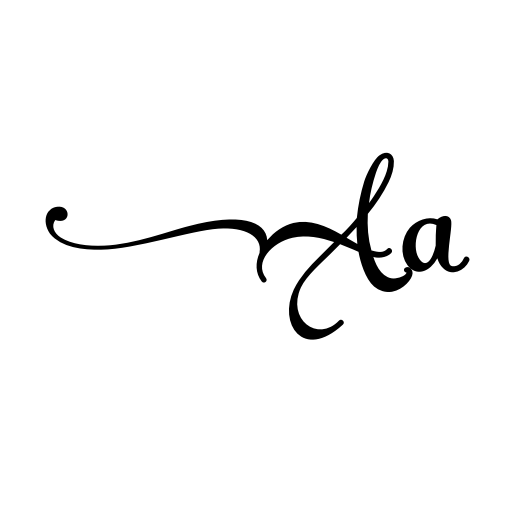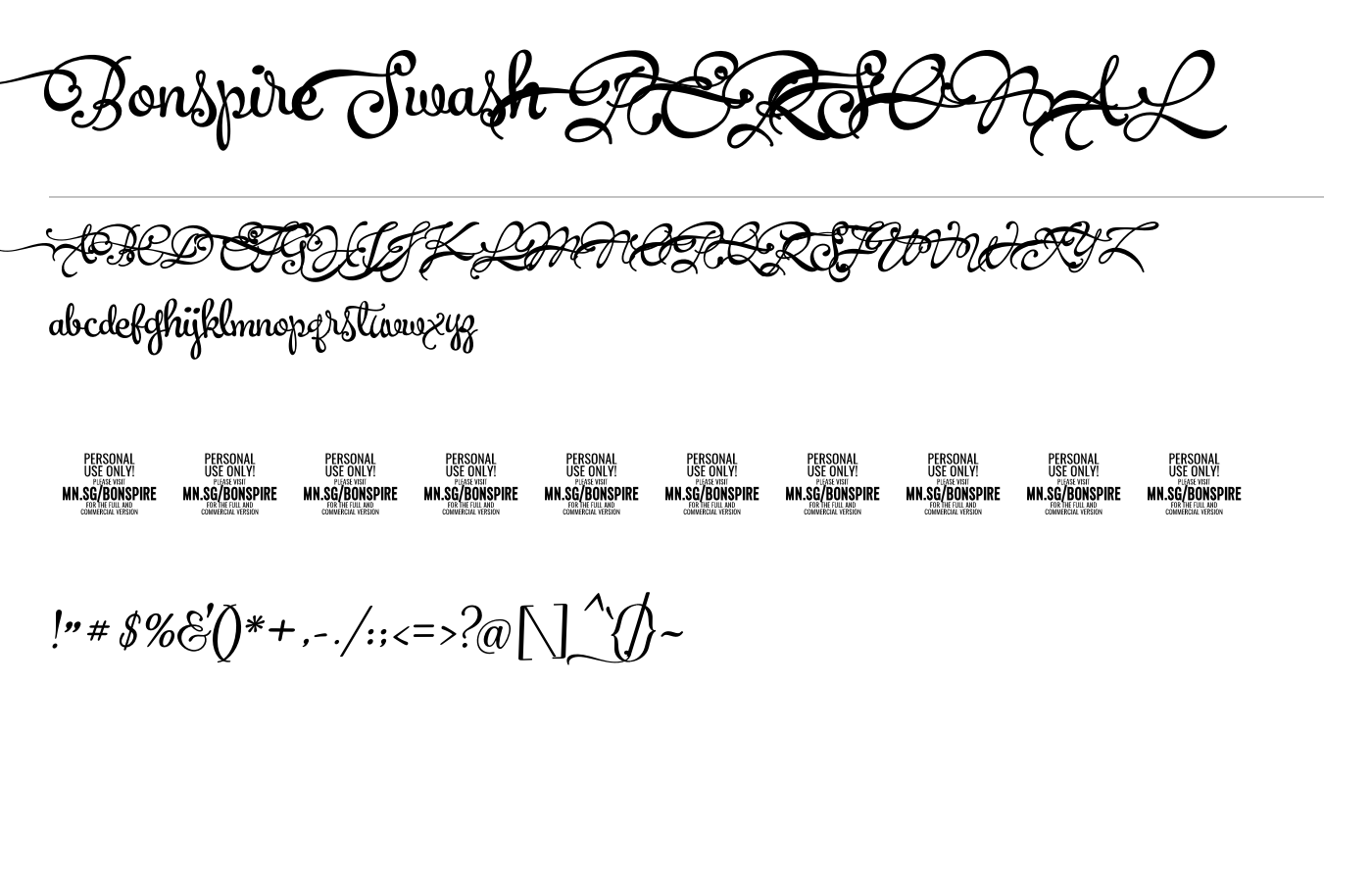
Bonspire Swash PERSONAL is an elegant script font with elaborate, flowing swashes and decorative curls that give it a romantic and vintage charm. Its delicate strokes and intricate letterforms make it perfect for formal invitations, luxury branding, and artistic designs where a graceful, sophisticated touch is desired. This font works best in large sizes for headlines or logos where its ornamental details can truly shine.
Bonspire Swash PERSONAL Font
About Bonspire Swash PERSONAL Font